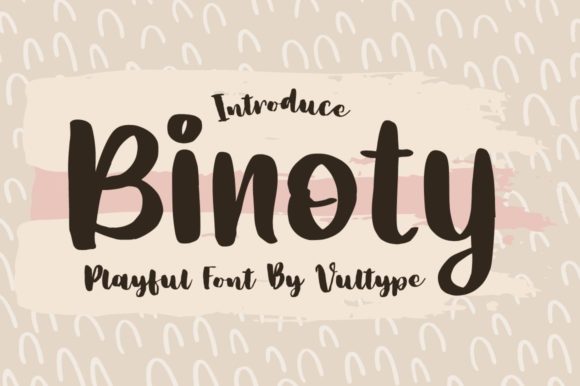
The Designer’s Delight: A Deep Dive into Binoty Font
I’ll never forget the time I was working on a luxury branding project for a high-end jewelry client. I had spent hours perfecting the logo design, but something was missing. The font I had chosen just wasn’t giving off the luxurious vibe I was going for. That’s when I stumbled upon Binoty Font, and let me tell you, it was love at first sight! 💫
Binoty is a playful handwritten font that adds a unique feel and stunning impact to any design project. Its elegant and sophisticated style makes it perfect for luxury branding, packaging, and even digital media. In this article, we’ll take a closer look at what makes Binoty so special and how you can make the most of it in your designs.
An Honest Review of Binoty Font
What I Love About Binoty ✨
- ✨ Unique and playful handwritten style that’s perfect for luxury branding
- ✅ PUA encoded for easy access to glyphs and ligatures
- ✅ Highly legible and versatile for use in various design projects
- ✅ Stunning impact that elevates any design
- ⚠️ Limited use in very formal or traditional design projects
- ⚠️ May require some experimentation to get the perfect look
The Backstory of Binoty Font
Binoty Font was designed with the intention of creating a unique and luxurious handwritten font. The designer aimed to create a font that would add a touch of elegance and sophistication to any design project. With its PUA encoding and extensive glyph library, Binoty has become a favorite among designers and crafters alike.
A: PUA (Private Use Area) encoding allows font designers to include additional glyphs and characters that aren’t part of the standard Unicode range. This means you get access to more glyphs, ligatures, and stylistic alternates, making your designs more versatile and creative.
Q: Is Binoty Font suitable for body text?
A: While Binoty is highly legible, it’s primarily designed for display and headline use. For body text, you may want to consider a more traditional font for better readability.